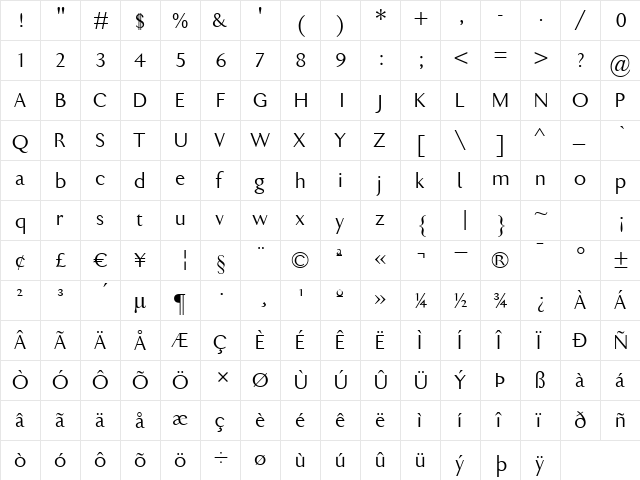
Gill New Antique Regular
Gill New Antique wears its vintage influences proudly, with letterforms that recall mid-century signage, classic packaging, and nostalgia-driven design.
Font Pairing: Combine Gill New Antique with a simple slab or neutral sans — period-accurate companions reinforce the vintage feel without competing for attention.
Pro Tip: Lean into Gill New Antique's period character by pairing it with aged paper textures, muted colour palettes, and vintage illustration styles.